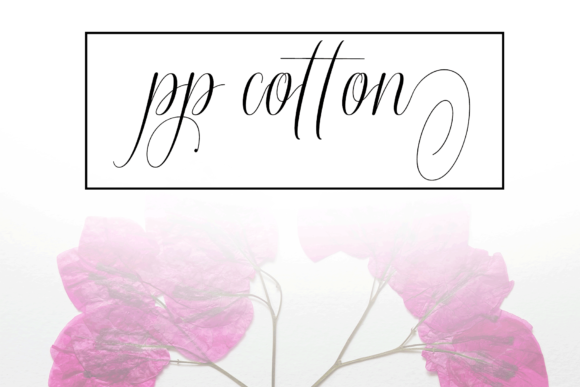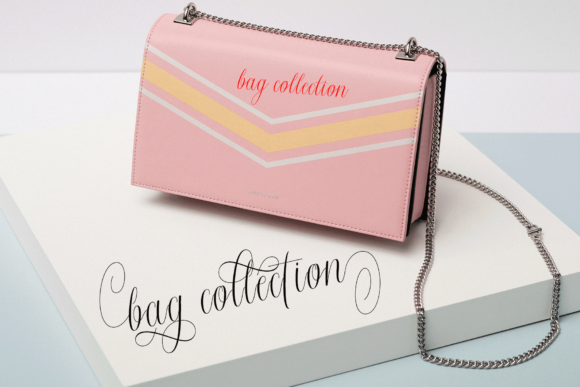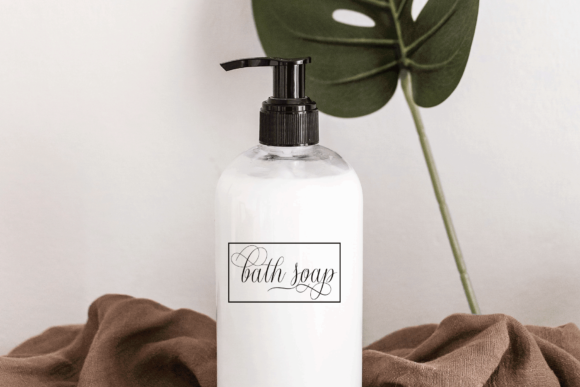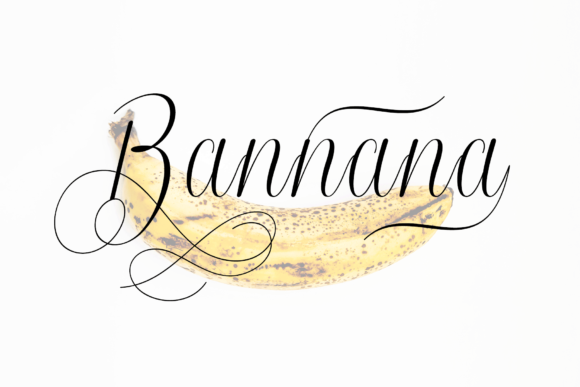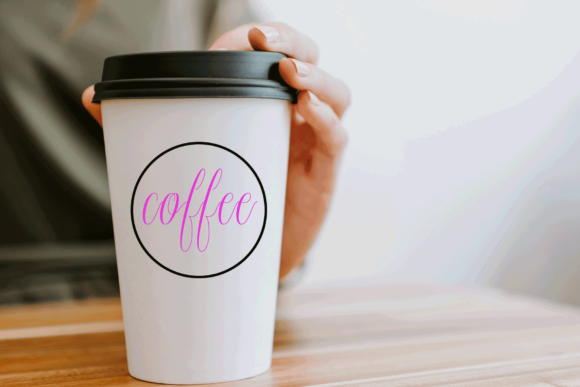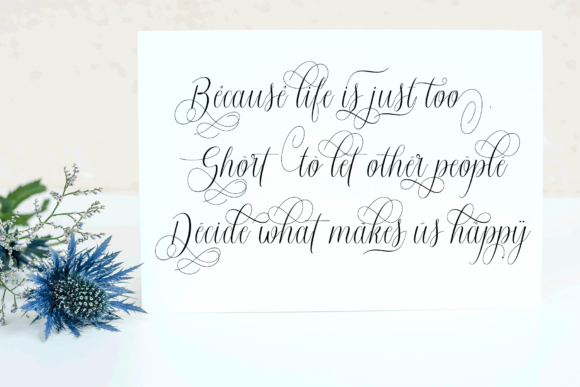
Introducing Bandet Font: Elevate Your Designs with Elegance
In the world of typography, a font can make or break a design. For designers and crafters looking for that perfect touch of elegance, Bandet Font is here to transform your projects. This unique handwritten font is not just a typeface; it’s an experience. With its smooth, flowing lines and sophisticated feel, Bandet is poised to become your go-to choice for a wide array of design needs.
The Elegance of Bandet
Bandet Font boasts an elegant feel that is hard to find in today’s digital age. Its handwritten nature brings a personal touch to any project, making it stand out from the crowd. Whether you’re designing for digital platforms or print, Bandet ensures that your work exudes a sense of luxury and refinement. Its versatility means it can be used across various mediums, from professional documents to creative projects.
Versatile Uses for Bandet
One of the key advantages of Bandet Font is its incredible versatility. It’s designed to be adaptable, making it suitable for a myriad of applications. Here are some of the ways you can use Bandet to elevate your designs:
• Headings and Logos: Create stunning headings and logos that capture attention and convey sophistication.
• Wedding Invitations: Add a touch of romance and elegance to your wedding invitations, making the occasion even more special.
• T-Shirts and Merchandise: Design unique and stylish apparel that stands out with Bandet’s distinctive charm.
• Letterheads and Signage: Enhance your professional documents and business signage with a font that speaks of excellence.
• Labels and News: Even in more functional applications like labels and news articles, Bandet brings a level of sophistication that’s hard to match.
• Posters and Badges: Whether you’re advertising an event or creating custom badges, Bandet ensures your designs are both eye-catching and elegant.
PUA Encoded for Ease of Use
Understanding the needs of designers, Bandet Font comes PUA (Private Use Area) encoded. This encoding means that accessing the full range of glyphs and swashes is straightforward, allowing for greater flexibility and creativity in your designs. No more tedious searching for the right characters; with Bandet, everything you need is at your fingertips.
Why Choose Bandet Font?
In a sea of fonts, Bandet stands out for several reasons:
• Unique and Elegant: Its handwritten nature and elegant feel make it perfect for projects that demand a personal touch.
• Versatile: From professional to personal projects, Bandet adapts seamlessly.
• User-Friendly: Being PUA encoded, it offers ease of use that is hard to find elsewhere.
Bandet Font is more than just a typeface; it’s a design solution that brings elegance and versatility to your projects. Whether you’re a professional designer or a crafter, Bandet offers the perfect blend of style and functionality. Its wide range of applications, coupled with its PUA encoding, makes it an indispensable tool in your design arsenal. Elevate your designs with Bandet Font and experience the difference that elegance and versatility can make.